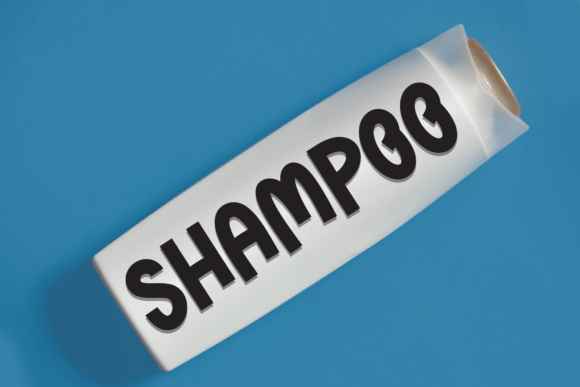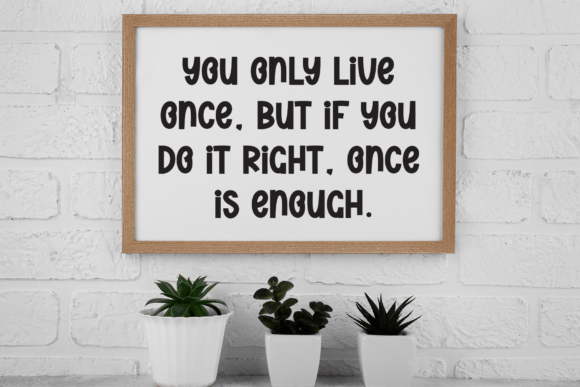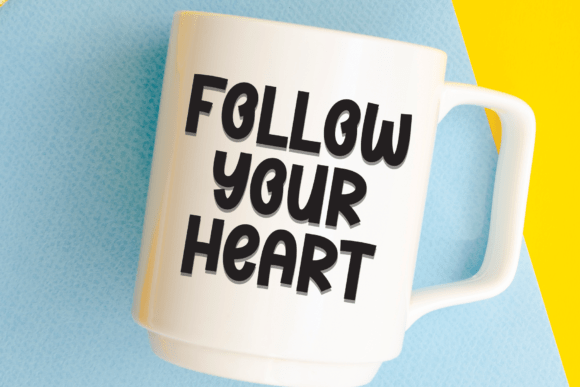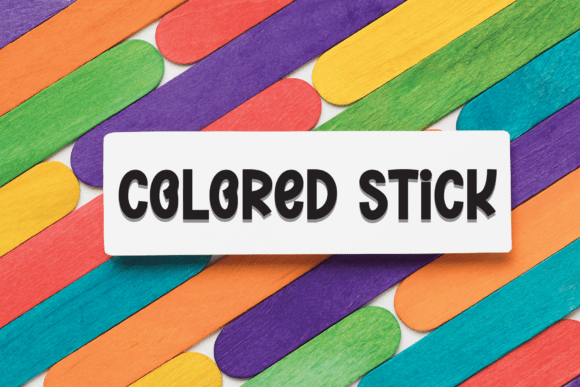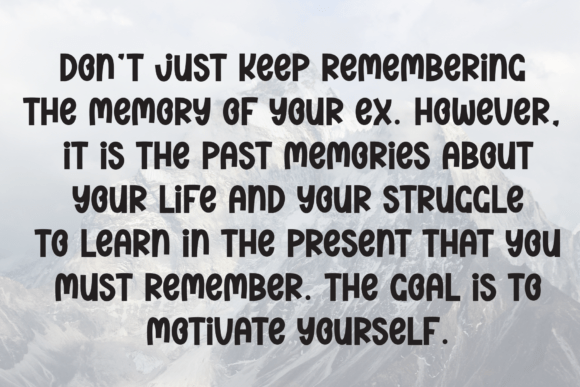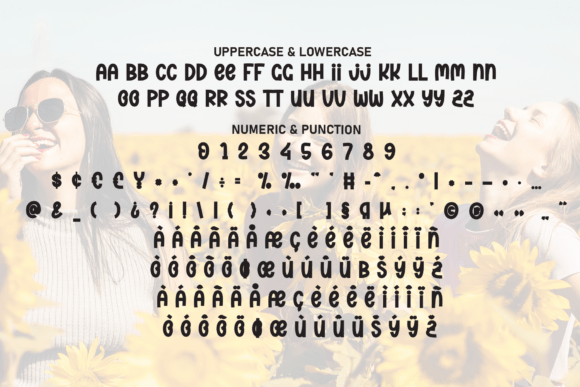
Introducing Happy Moment Font: Adding a Personal Touch to Your Designs
In the world of digital design, fonts play a crucial role in conveying emotions and setting the tone for a brand or project. Among the numerous fonts available, Happy Moment Font stands out for its unique charm and character. This handwritten display font is designed to bring a personal, heartfelt touch to various design projects, making it perfect for quotes, greeting cards, branding, and more.
Handwritten fonts have always been popular among designers for their ability to add a human touch to digital content. They evoke feelings of warmth, friendliness, and approachability, making them ideal for projects that require a personal connection with the audience. Happy Moment Font takes this concept to the next level with its playful strokes and casual flow, capturing the essence of authentic handwriting.
Key Features of Happy Moment Font
- Playful Strokes: Happy Moment Font features playful strokes that give it a lively and energetic feel. Each letter is crafted with care, ensuring that the font looks natural and effortless.
- Casual Flow: The font’s casual flow makes it perfect for designs that require a relaxed and approachable tone. Whether you’re creating a greeting card or a brand logo, Happy Moment Font adds a touch of warmth and personality.
- Authentic Handwriting: The font’s authentic handwriting style makes it suitable for projects that require a personal touch. From quotes to social media posts, Happy Moment Font brings a sense of genuineness to your designs.
Happy Moment Font is versatile and can be used for a wide range of design projects. Here are some ideas to get you started:
- Quotes: Add a personal touch to your quotes with Happy Moment Font. Its playful strokes and casual flow make it perfect for inspirational quotes, love quotes, and more.
- Greeting Cards: Create beautiful greeting cards for special occasions like birthdays, weddings, and holidays. The font’s warm and friendly tone makes it ideal for conveying emotions.
- Branding: Use Happy Moment Font to create a unique brand identity. Its authentic handwriting style makes it perfect for logos, taglines, and marketing materials.
- Kids’ Projects: Happy Moment Font is also suitable for kids’ projects, such as children’s books, educational materials, and activity sheets. Its playful and energetic feel makes it perfect for young audiences.
- Modern Logos: Create a modern logo with a personal touch using Happy Moment Font. Its casual flow and authentic handwriting style make it ideal for startups and businesses that want to stand out.
Why Choose Happy Moment Font?
With so many fonts available, why choose Happy Moment Font? Here are a few reasons:
- Unique Character: Happy Moment Font has a unique character that sets it apart from other fonts. Its playful strokes and casual flow make it perfect for designs that require a personal touch.
- Versatility: The font is versatile and can be used for various design projects, from quotes to branding.
- Easy to Read: Happy Moment Font is easy to read, making it perfect for designs that require a clear and concise message.
Happy Moment Font is a beautiful handwritten display font that brings charm and character to every letter. Its playful strokes and casual flow make it perfect for designs that require a personal, heartfelt touch. Whether you’re a designer or a crafter, Happy Moment Font is an excellent choice for your next project. So why wait? Download Happy Moment Font today and add a touch of warmth and whimsy to your designs!